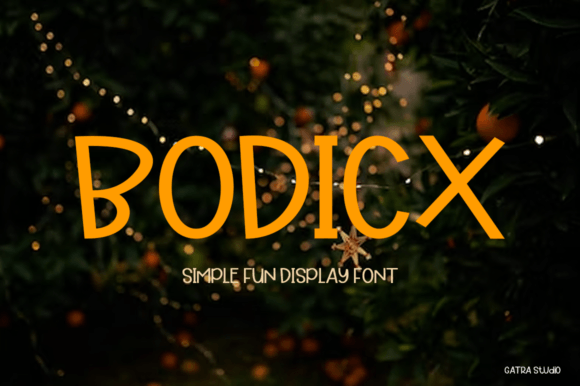
The Perfect Font for a Modern Touch
Have you ever found yourself stuck in a design rut, scrolling through font options, and still can’t seem to find the perfect fit? You know that moment when you’re trying to convey a modern and casual vibe, but everything seems to fall flat? Well, you’re not alone!
That’s where the Bodicx Font comes in – a modern and fun display font designed to add a touch of sophistication and playfulness to your designs. Whether you’re working on a branding project, creating social media graphics, or crafting a poster, Bodicx Font is the perfect companion to elevate your work. Its versatility and unique style make it a valuable asset for designers looking to add a modern twist to their projects.
Bodicx Font Key Features
- Font Family: Bodicx Font is a sans-serif font family that comes in multiple weights and styles.
- Unique Characteristics: Bodicx Font features a clean and modern design with a unique geometric flair, making it stand out from other sans-serif fonts.
Bodicx Font Review
I recently had the chance to work with the Bodicx font, and I must say it’s an interesting addition to any design project. ✨ One of the things that works well with this font is its versatility – it can be used for both digital and print designs. The font’s bold and elegant lines make it perfect for headings and titles, while its simplicity also allows it to be used for body text.
Another plus of the Bodicx font is its readability. The font’s letterforms are well-designed, and the spacing between letters and words is just right, making it easy to read even at smaller font sizes. ✨ The font also supports a wide range of languages, which is a big plus for designers who work with clients from different parts of the world.
- ⚠️ Limited customization options – while the font is great as is, there aren’t many options to customize it to fit specific design needs.
- ⚠️ Not suitable for complex layouts – the font’s simplicity can sometimes make it difficult to read in complex layouts or when used with too many fonts.
Overall, I think the Bodicx font is a great addition to any designer’s toolkit. While it has some limitations, its versatility and readability make it a great choice for a wide range of design projects. With a little creativity, the Bodicx font can help take your designs to the next level.
Tips for Getting the Most Out of Bodicx Font
To get the most out of Bodicx Font, use it in conjunction with bold or italic styles to create emphasis. Use it in headings to create a visually appealing hierarchy. Experiment with different font sizes to create a balanced composition.
Bodicx Font is ideal for creating modern and elegant designs. Use it for headings, titles, and body text in creative projects, such as infographics, posters, and brochures. It’s also suitable for formal documents, like resumes and business reports.